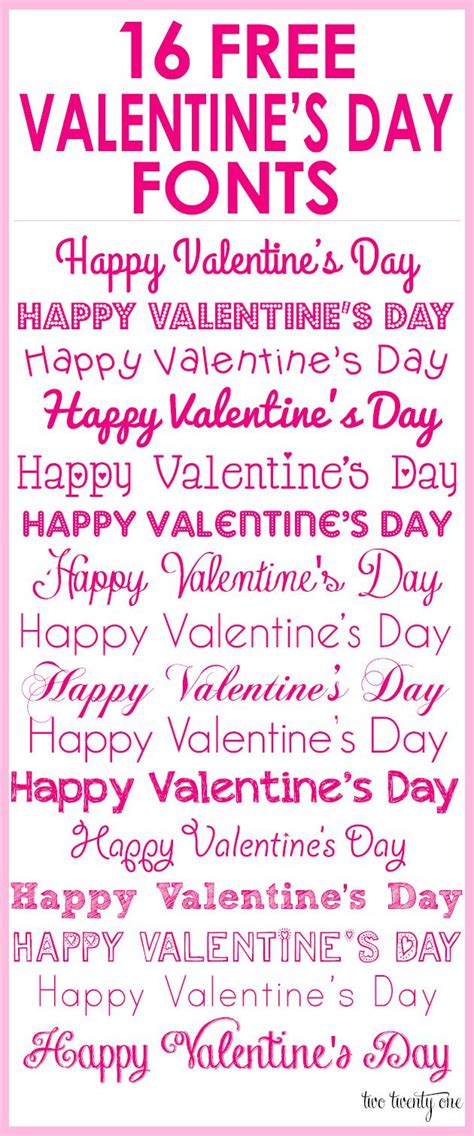
Valentines Day Fonts. Archive of freely downloadable fonts. Download these beautiful and unique free fonts to add a romantic touch to your cards, invitations, and love letters.
Download these beautiful and unique free fonts to add a romantic touch to your cards, invitations, and love letters. Wonder valentine cute font is a modern and romantic font with beautiful strokes and elegant lines. Web merciful heart doodle by sronstudio. Valentine’s day is celebrated each year on february 14. Browse by alphabetical listing, by style, by author or by popularity. I found my valentine à € by misti's fonts. Web looking for something special this valentine's day? Love is in the air with these romantic fonts. Web valentine easter halloween christmas various. Web looking for the best font for valentine's day?
Wonder valentine cute font is a modern and romantic font with beautiful strokes and elegant lines. Lots of hearts and calligraphy are perfect for that. Web valentine easter halloween christmas various. Archive of freely downloadable fonts. Web merciful heart doodle by sronstudio. Valentine’s day is celebrated each year on february 14. I found my valentine à € by misti's fonts. Browse by alphabetical listing, by style, by author or by popularity. Download these beautiful and unique free fonts to add a romantic touch to your cards, invitations, and love letters. Wonder valentine cute font is a modern and romantic font with beautiful strokes and elegant lines. Web looking for something special this valentine's day?